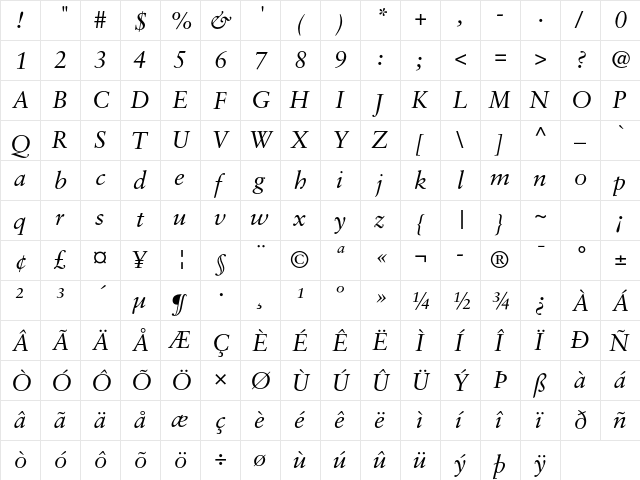
Korinthia Italic
| Foundry | Semata |
| Designer | Jan Tschichold |
Design Context for Korinthia Typeface
Korinthia offers clean, dependable letterforms without strong stylistic allegiance, making it a practical choice for designers who need flexibility. The slanted form adds forward momentum and visual energy.
Pro Tip: Try Korinthia for annotation and caption copy alongside an upright companion — the contrast in angle creates a dynamic but ordered typographic system.